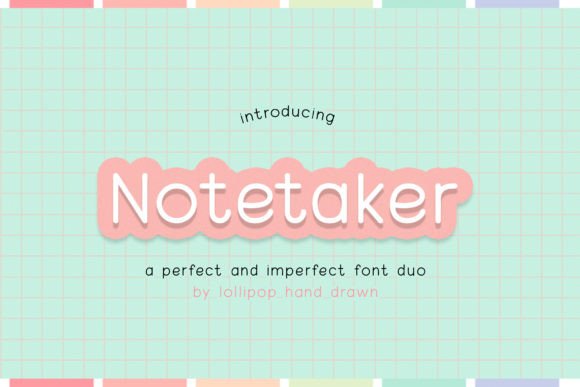
Looking for the best fonts for kids websites? Look no further than Notetaker Font, the perfect choice for anyone looking for a playful and whimsical display font. Created by Lollipop Hand Drawn, this font family is sure to catch the eye of anyone who loves fun, creative design.
Notetaker is more than just a font – it's an experience. With its cute and whimsical design, this font will add a touch of personality to any project. Whether you're creating a website, designing a logo, or working on a print project, Notetaker will help you stand out from the crowd.
One of the best things about Notetaker is its versatility. This font family is incredibly flexible, and can be used in a wide range of applications. Whether you're creating a website for kids, designing a birthday invitation, or creating a fun poster, Notetaker is the perfect choice.
But don't let its playful appearance fool you – Notetaker is also a professional-quality font that will help take your designs to the next level. With its carefully crafted letters and smooth lines, this font is sure to impress even the most discerning clients.